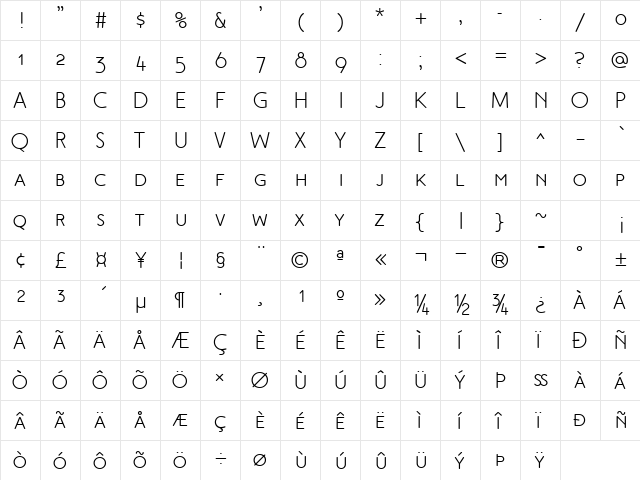
Malvern SC Regular
Design Context for Malvern SC Typeface
Malvern SC is a composed and adaptable typeface that performs quietly and consistently across a wide range of design contexts.